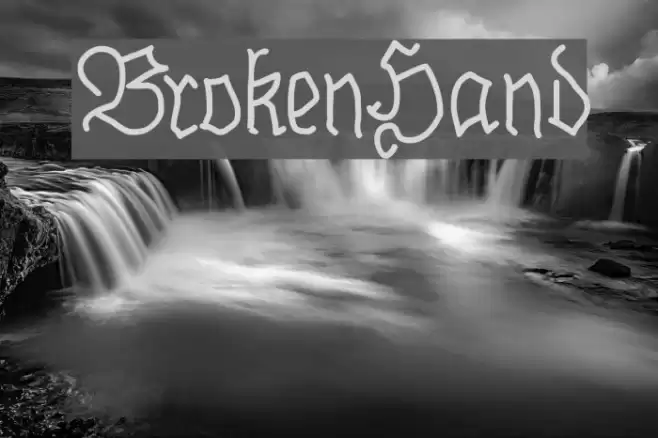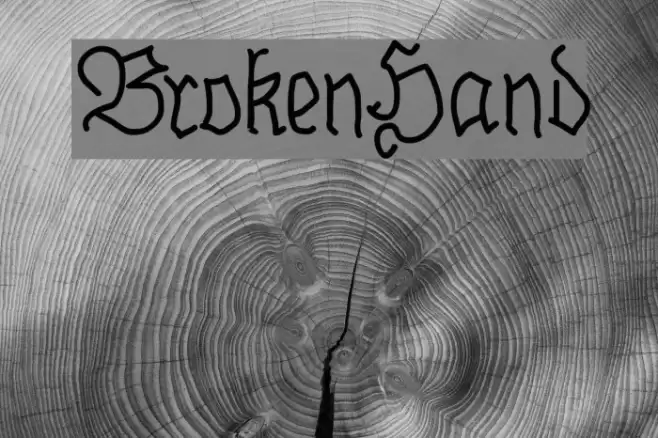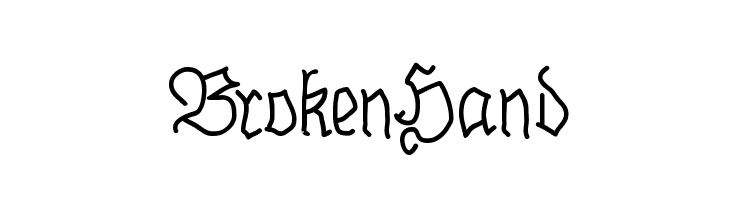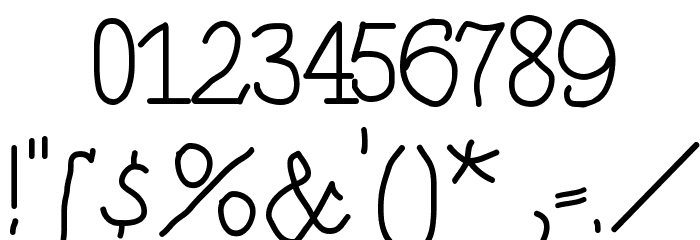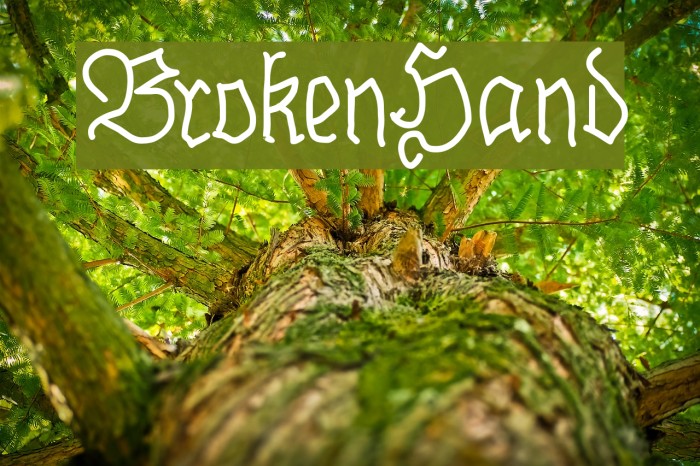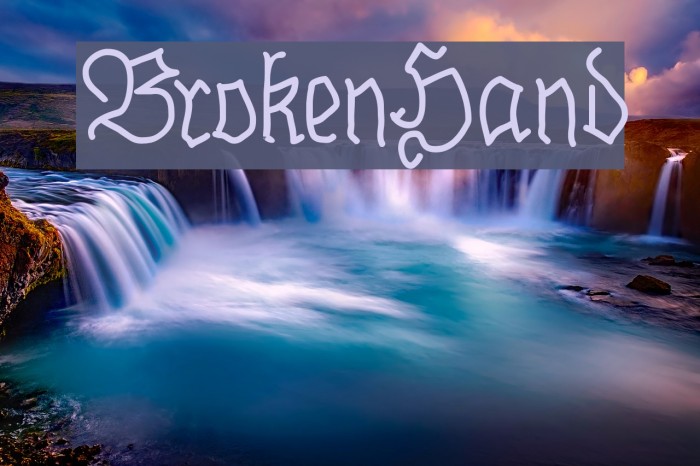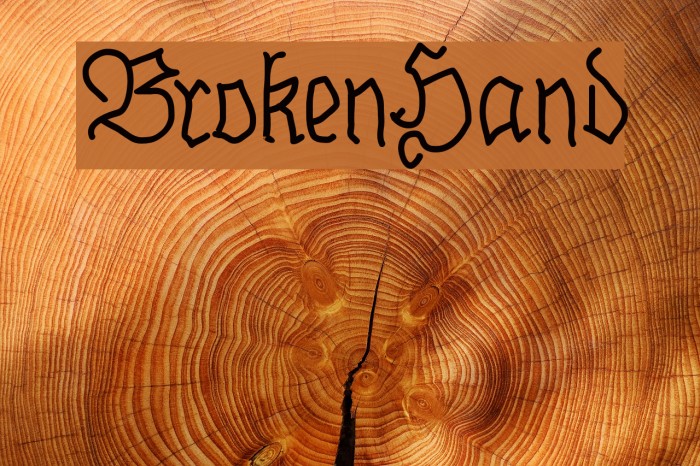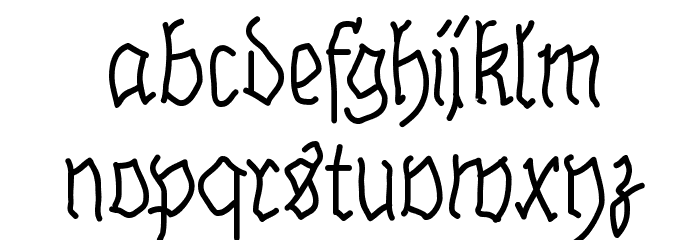
BrokenHand Font
BrokenHand Description
This font features a unique, hand-drawn style with a slightly gothic influence. The characters are intricately designed with a flowing, cursive-like appearance that gives it a distinct, artistic flair. The uppercase letters are bold and ornate, while the lowercase letters maintain a consistent, elegant form. Numbers and special characters follow the same artistic theme, making the font versatile for creative projects. The overall design is both decorative and readable, suitable for making a strong visual impact.
A decorative, hand-drawn font with a gothic flair and flowing, cursive-like characters from Uncategorized fonts.
- Proposed Projects: Ideal for artistic projects, invitations, posters, and branding that require a unique and decorative touch.
- Use Case: Logos, Headlines, Artistic projects